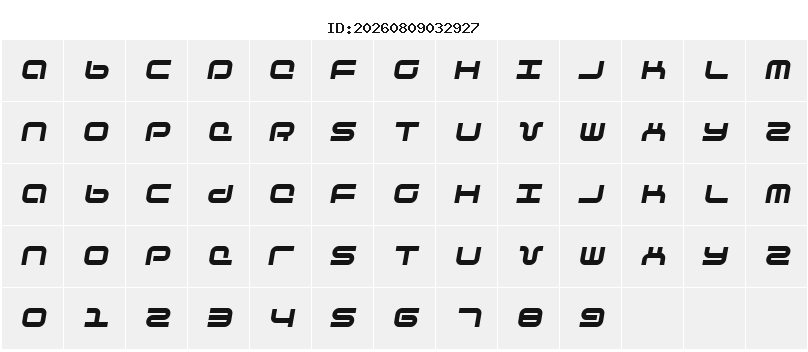
Phutura Preview
• Font Name: Phutura
• Designer: Andreas Nylin
About Phutura.ttf
Phutura.ttf is a modern, elegant sans-serif font designed for ultimate readability and visual harmony. Perfect for branding, headlines, web design, and print materials.